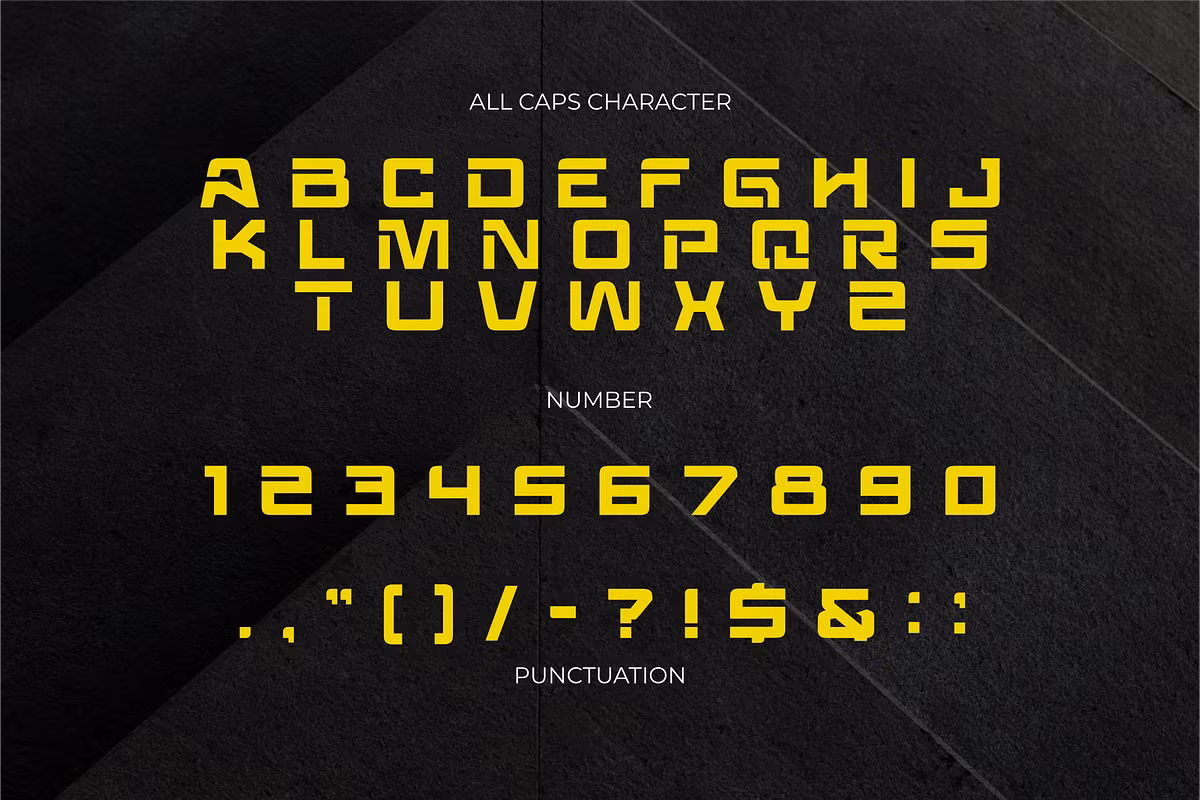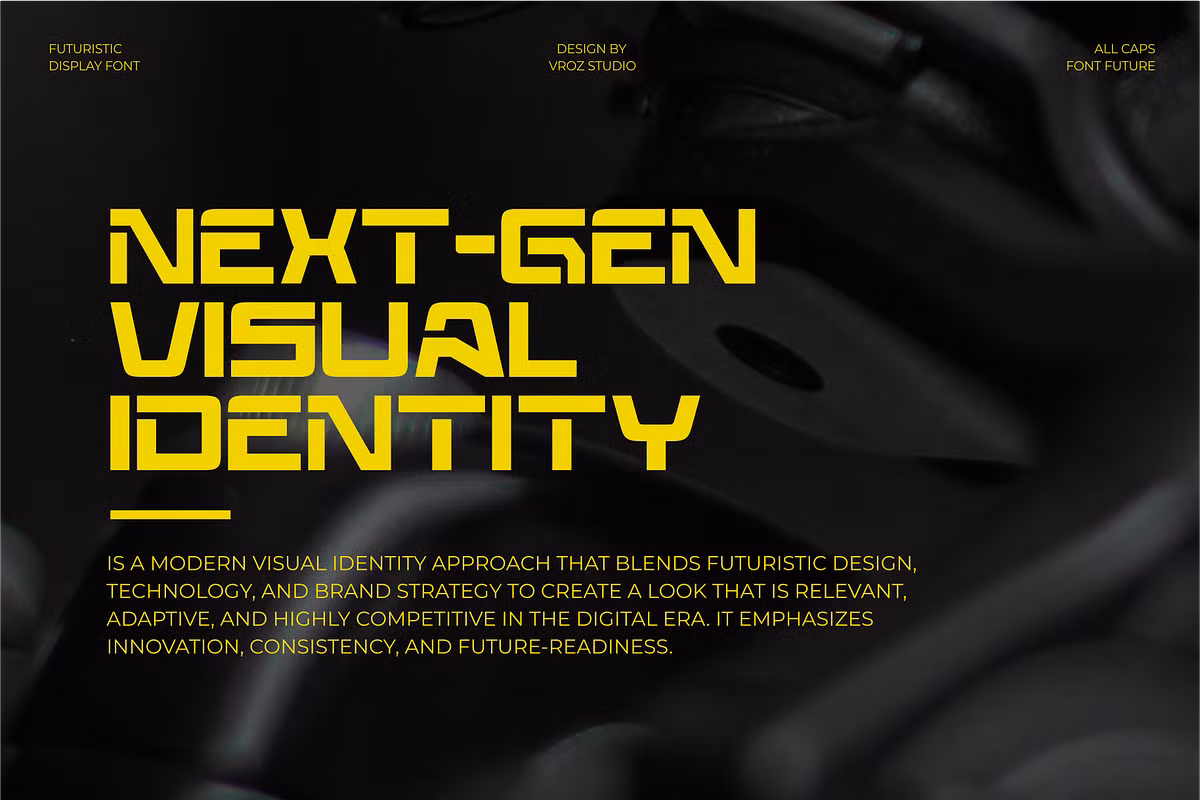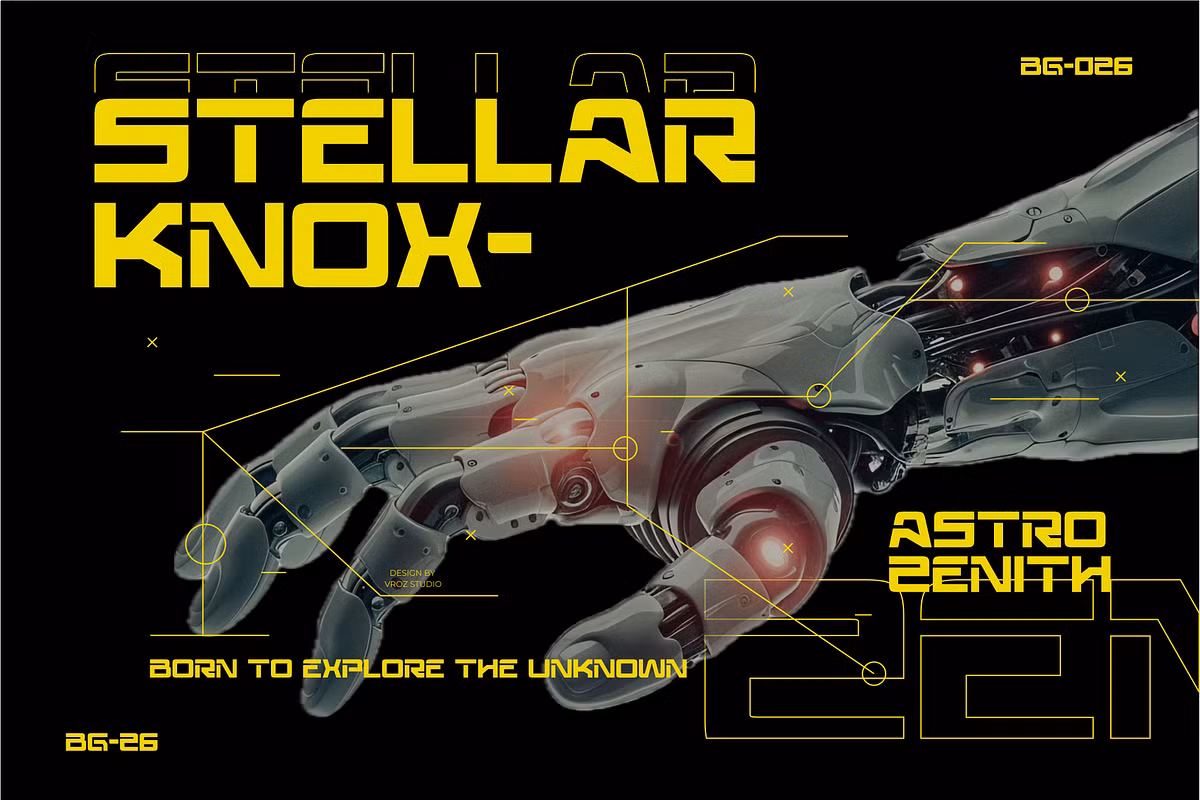
Briganix: Versatile Futuristic Modern Sans Serif Font for Design
Briganix is a cutting-edge sans serif font designed with a futuristic flair and modern sensibility. Its creation focuses on delivering clarity and precision, making it an ideal choice for various contemporary design needs. With its geometric structure and smooth transitions, Briganix stands out as a go-to typeface for designers seeking a confident and forward-looking visual style.
Design Style of Briganix
The Briganix font has a really modern look, with simple shapes and lines that make it easy to read. What makes it stand out is how well-designed it is, with each letter having the same thickness, which makes it look great. This attention to detail doesn’t just make it look good, but also helps people understand what they’re reading. You can use Briganix for small text or big headings, and it still works really well – it’s easy to read and gets your message across.
The way the letters are shaped in Briganix gives your designs a sense of balance and neatness. The clean lines and smooth connections between letters make the text flow nicely. This makes Briganix a great choice for many different kinds of projects, like tech stuff or creative branding. It’s a good example of modern typography, where function and style come together.
Character Sets and Font Features
With these different formats, designers have the freedom to choose the one that fits their project needs, and they can trust that the font will look its best. Briganix has a really nice feature – its lines are all the same thickness, which makes it look sleek and professional. This consistency is not only easy on the eyes, but it also adds to the font’s simple and understated style, so it doesn’t overwhelm the other parts of your design.
Use Cases for Briganix
Briganix is incredibly versatile, making it suitable for a wide array of creative projects. Here are some notable use cases:
- Branding: Briganix’s modern aesthetic makes it an excellent choice for logos and branding materials, giving businesses a forward-thinking identity.
- Technology Design: Whether designing apps or tech-related websites, Briganix enhances the visual communication of innovative products and services.
- Gaming Visuals: The futuristic style of Briganix is perfect for gaming graphics, from UI elements to promotional posters, capturing the essence of the gaming culture.
- Posters and Print Media: With its high readability and striking appearance, Briganix can elevate the design of posters, flyers, and other print media.
- UI/UX Layouts: In web design, Briganix offers clarity and elegance, making it ideal for user interfaces that require clear communication.
When it comes to pairing fonts, Briganix offers flexibility and compatibility with other typefaces. For a cohesive look, consider pairing Briganix with the following font styles:
- Modern Sans Serifs: Fonts like Montserrat or Roboto complement Briganix beautifully, enhancing its contemporary feel while maintaining a clean aesthetic.
- Classic Serifs: Pairing Briganix with classic serif fonts such as Times New Roman or Georgia can create a striking contrast that draws attention and adds sophistication to your design.
- Display Fonts: For headings and titles, consider using a bold display font to create a dynamic visual hierarchy alongside Briganix’s minimalist design.
Trying out different combinations can lead to some really interesting outcomes, giving you the freedom to personalize your design while still making sure it’s easy to read and looks great.
This font is really versatile, so you can use it for lots of different things. It’s great for graphic designers, web developers, and people who work on branding. Briganix is a good choice because it gives your projects a modern and futuristic feel. You can trust it to make your work look good, no matter what you’re doing. It’s a solid addition to your design tools, and it will help you create some amazing things.
Briganix is a great choice for designers who want a modern and versatile font. It has a simple, geometric shape and clean lines, making it easy to read and use in lots of different projects. From branding and tech to gaming and UI design, Briganix works well because it’s clear and looks good.
Designers can use it to get their message across in a way that’s easy to understand and looks great. Plus, it works on lots of different platforms and has flexible licensing, which makes it a useful tool for anyone who wants to take their design to the next level. With Briganix, you can create designs that are both functional and visually appealing, which is what makes it stand out as a great font for contemporary design. It’s not just a font, it’s a way to make your designs better and more effective.